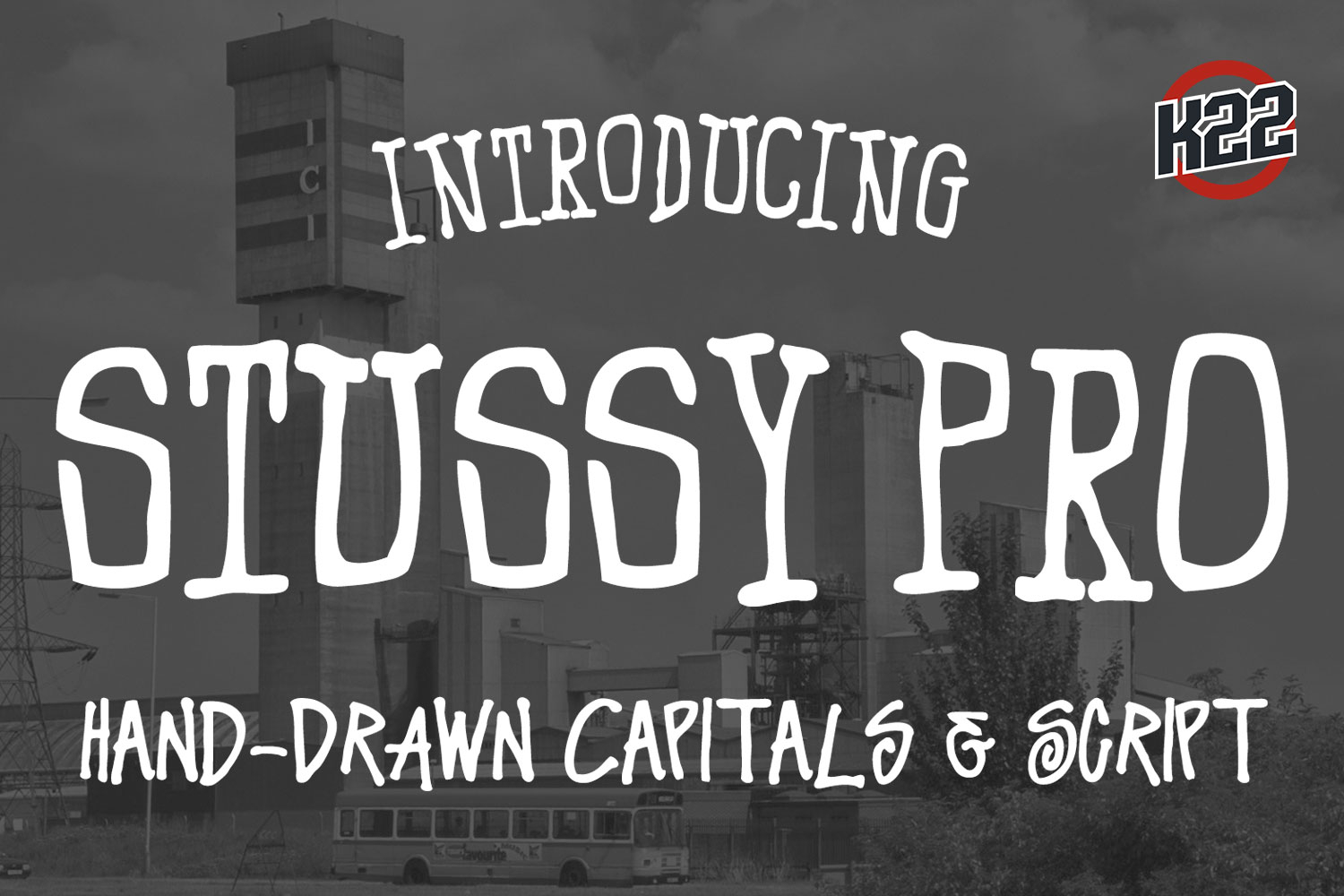
Stussy Pro
Stussy Pro Script
Stussy Pro Caps
A playful, hand-drawn grafitt tag style font with bold, irregular characters. This font features a playful and energetic hand-drawn appearance. The characters are bold and slightly irregular, giving it a casual and artistic feel. It includes a mix of uppercase and lowercase letters, numbers, and special characters
Ideal for branding, posters, apparel design, and creative projects that require a lively and informal touch. Capitals and script included.